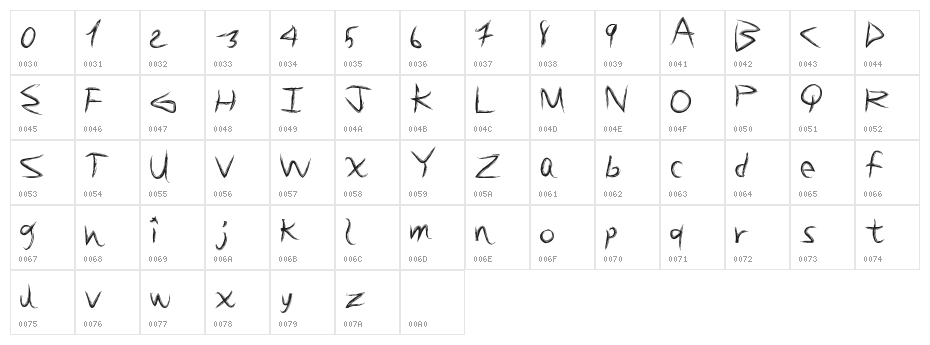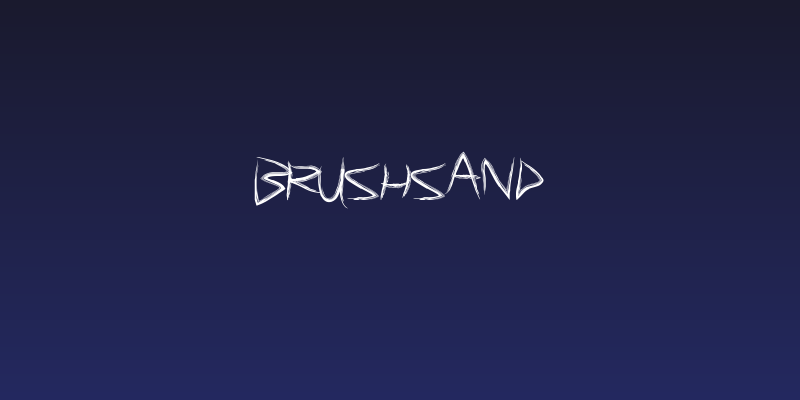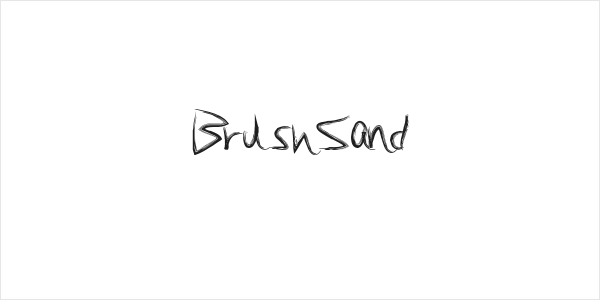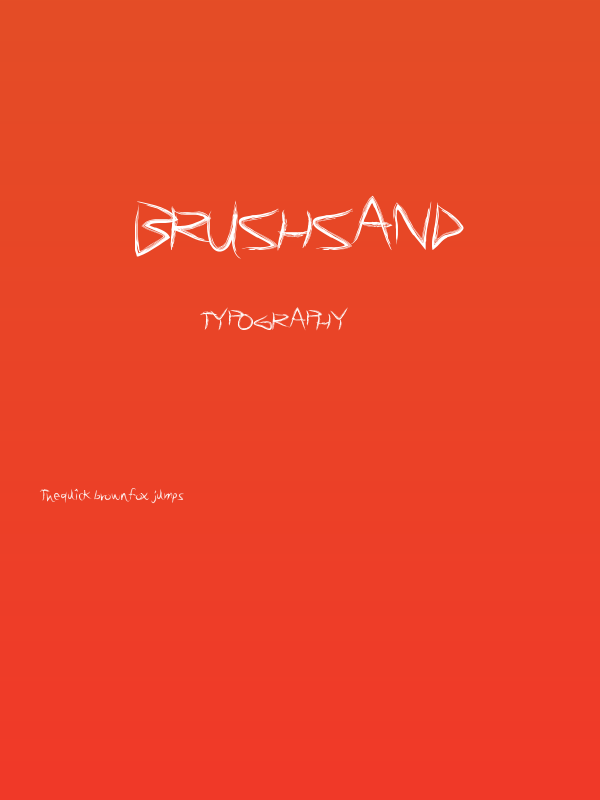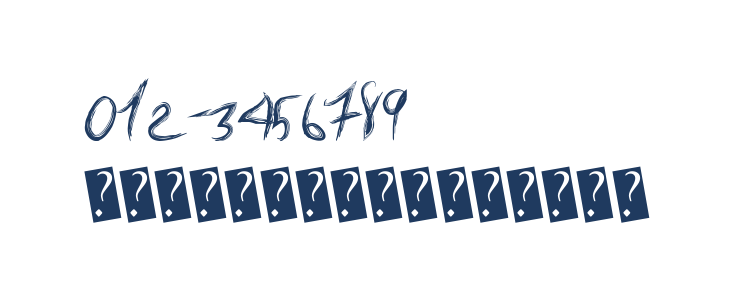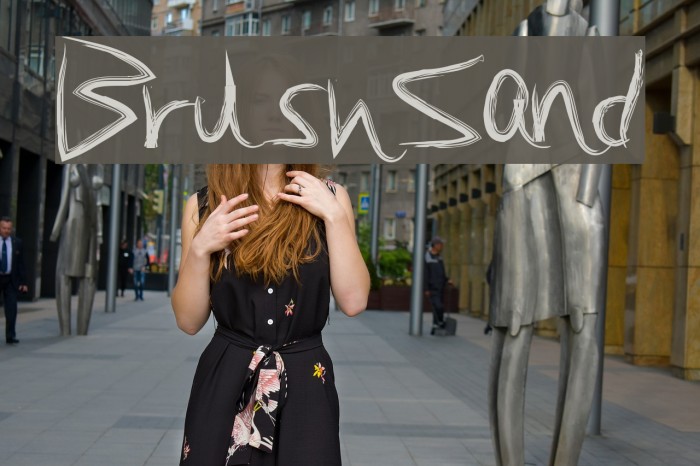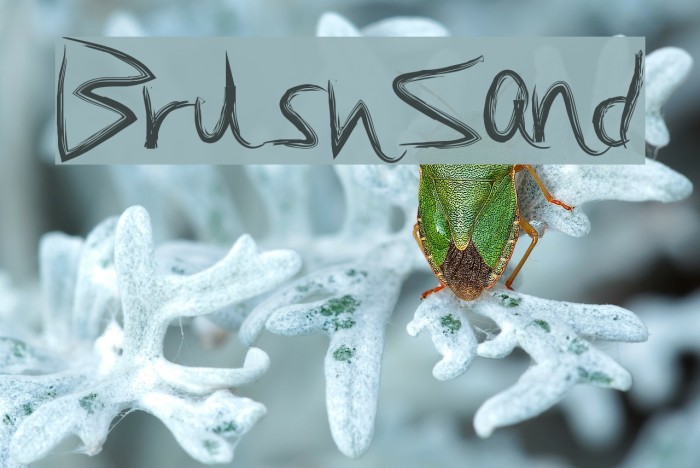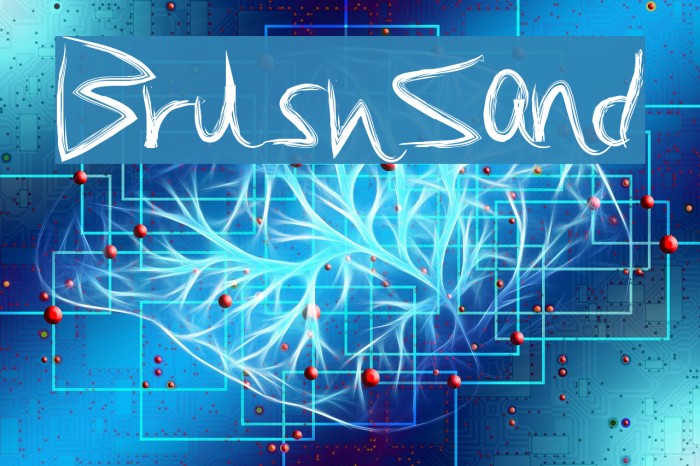
BrushSand Font
BrushSand Description
This font exudes a dynamic and energetic style, characterized by its brush-like strokes that give it a hand-painted appearance. The letters are irregular and have a natural flow, creating a sense of movement and spontaneity. The uppercase letters are bold and assertive, while the lowercase letters maintain a consistent fluidity. Numbers and special characters follow the same artistic style, ensuring uniformity across all elements. The overall impression is one of creativity and expressiveness, making it ideal for projects that require a personal touch or artistic flair.
| Overall Style | Artistic, Expressive |
| Proposed Projects | Ideal for artistic projects, branding, posters, and creative invitations. |